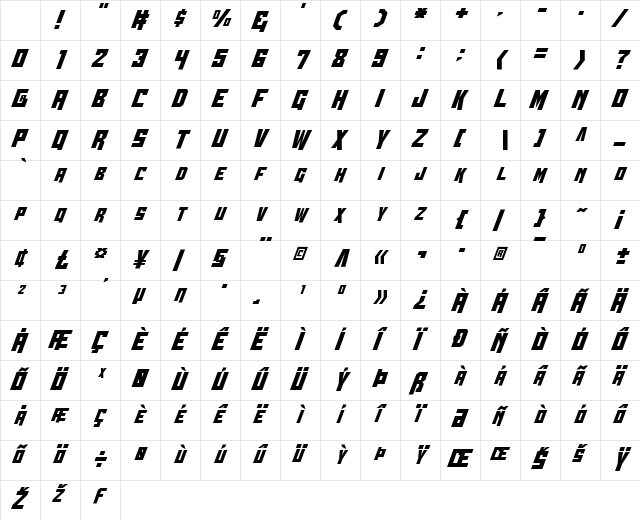
Whiskey Bravo Victor is a composed and adaptable typeface that performs quietly and consistently across a wide range of design contexts. Its narrow stance lets it pack a punch even in space-constrained designs.